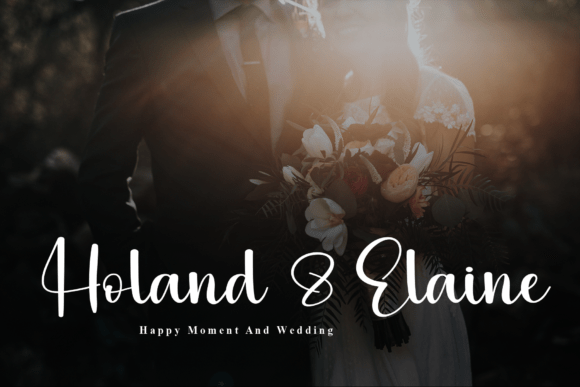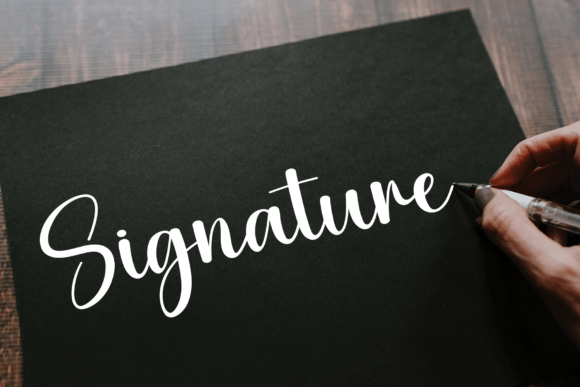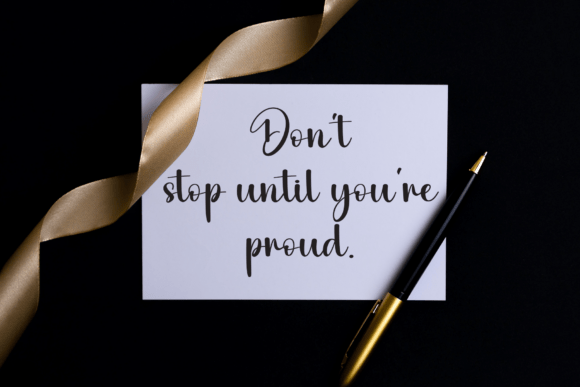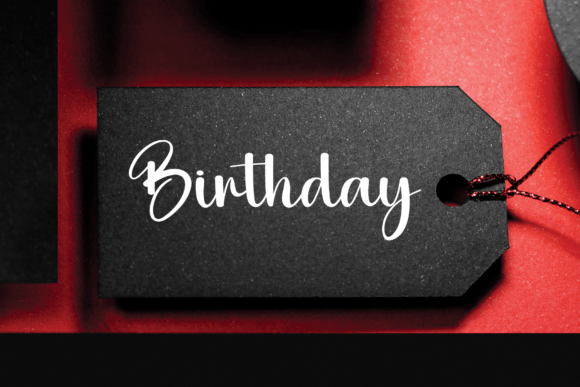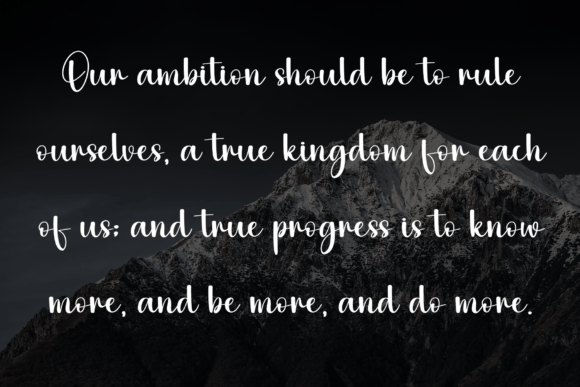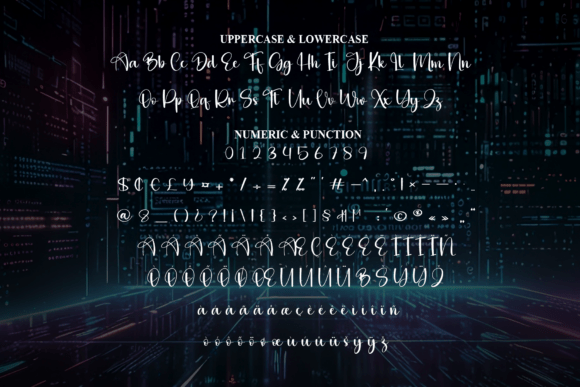
Are you a designer, crafter, or DIY enthusiast looking for a unique touch to elevate your projects? Look no further! Our digital fonts are here to revolutionize the way you create, offering a world of limitless possibilities for your wall displays, wedding invitations, social media posts, logos, advertisements, product packaging, and more.
The Latest Style Letters for Every Project
Our collection boasts the latest style letters that are perfect for adding a touch of elegance, whimsy, or sophistication to any project. Whether you’re working on a wedding invitation, a product design, or a social media post, our digital fonts will help you stand out from the crowd. With a vast range of styles to choose from, you’re sure to find the perfect fit for your next creative endeavor.
Our digital fonts are perfect for a wide range of projects, including:
- Wall displays: Add a personal touch to your home or office decor with custom wall art.
- Wedding invitations: Make your special day even more memorable with bespoke wedding stationery.
- Social media posts: Elevate your online presence with eye-catching graphics and logos.
- Logos and branding: Create a lasting impression with custom logos and branding materials.
- Advertisements: Stand out in a crowded market with attention-grabbing ads.
- Product packaging: Add a touch of personality to your product packaging.
- Product designs: Create unique and stylish product designs that reflect your brand’s personality.
- Labels and photography: Add a professional touch to your labels and photography projects.
- Watermarks and invitations: Protect your work and add a personal touch to your invitations.
- Stationery: Create custom stationery that reflects your personal style.